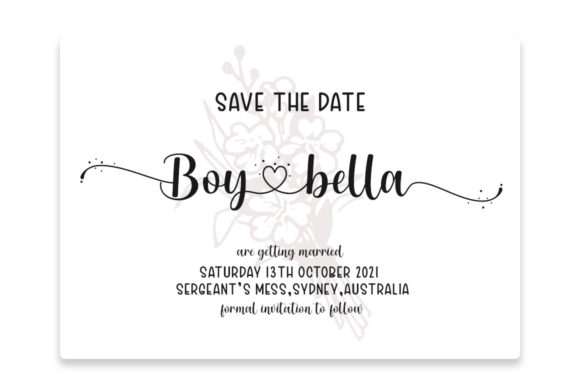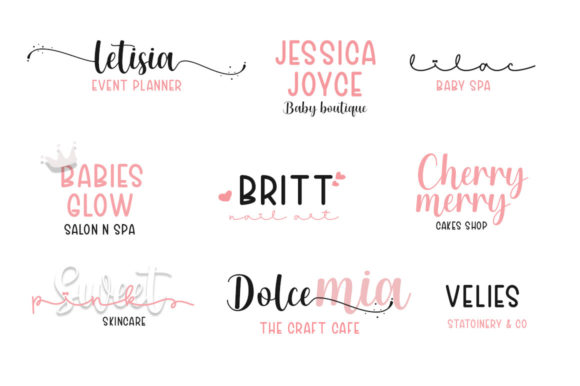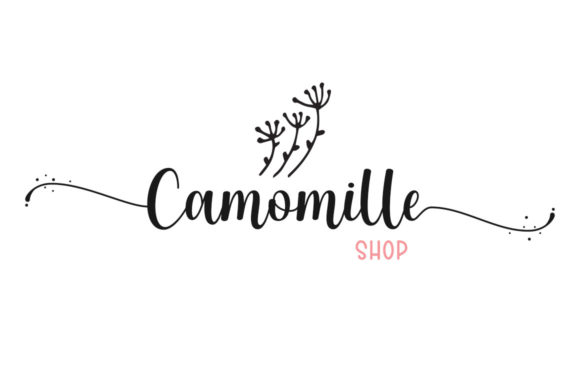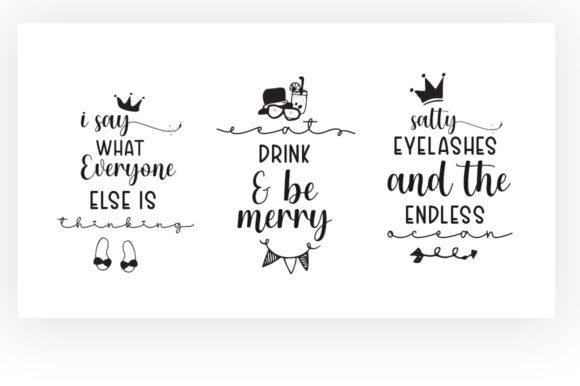
Unlock Your Creativity with Ashley Marie Font
Remember that moment when a font just clicked, and your entire design came together? It’s like magic. You’re brainstorming, sketching, and experimenting, and then suddenly, a beautiful script and sans serif combination appears. That’s exactly what happens when you discover Ashley Marie Font. This lovely duo font is a game-changer for designers, offering endless possibilities to elevate your designs to new heights.
Ashley Marie Font is more than just a font – it’s a creative partner that brings your ideas to life. Its versatility makes it perfect for a wide range of designs, from elegant invitations to modern logos. With Ashley Marie Font, you can create stunning visuals that leave a lasting impression. Whether you’re a seasoned designer or just starting out, this font is an invaluable addition to your toolkit.
Ashley Marie Font Key Features
- Font Family: Ashley Marie is a script font designed by Julia Kretschmann.
- Size and Resolution: Supports a wide range of sizes and resolutions, including small caps, swashes, and ornaments, making it suitable for various design applications.
- Unique Characteristics: Features elegant, handwritten-like lettering with subtle flair and connections between letters, perfect for creating a personal and artistic feel in designs.
Ashley Marie Font Review
Overall, I think the Ashley Marie Font is a lovely script font, perfect for adding a touch of elegance to your designs. ✨ The flowing lines and cursive feel make it ideal for invitations, quotes, and other creative projects. The font is highly legible, even at smaller font sizes.
Here are some of its notable features:
- ✨ Highly legible, even at smaller font sizes
- ✨ Beautiful flowing lines and cursive feel
- ✨ Perfect for invitations, quotes, and other creative projects
- ✨ Supports a wide range of languages
- ⚠️ Limited font weights and styles
- ⚠️ May not be suitable for large blocks of text
- ⚠️ Can be challenging to use for headings or titles
Overall, I think the Ashley Marie Font is a great addition to any designer’s toolkit. While it may have some limitations, its unique character and versatility make it a great choice for a wide range of projects. With a little creativity and experimentation, you can achieve some truly stunning results.